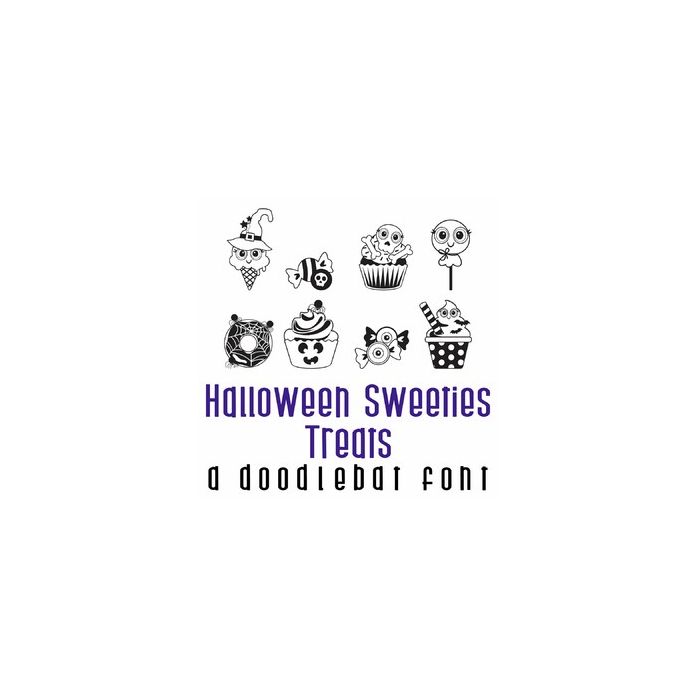
Halloween Sweeties - Treats Doodlebat Font
This fun doodlebat font features 26 pixel game icons. Perfect for cards, gifts, decor, crafts, scrap book pages, planner stickers and more!